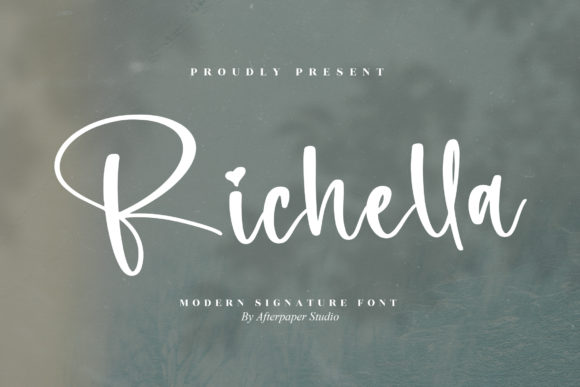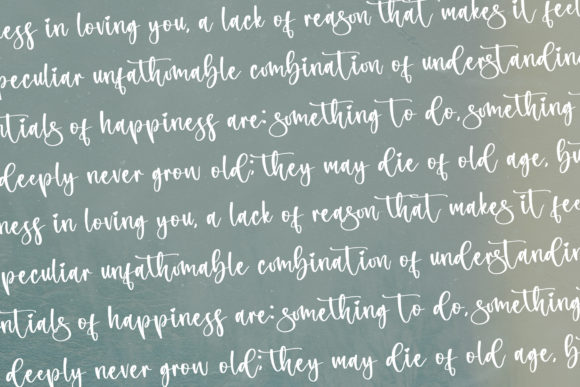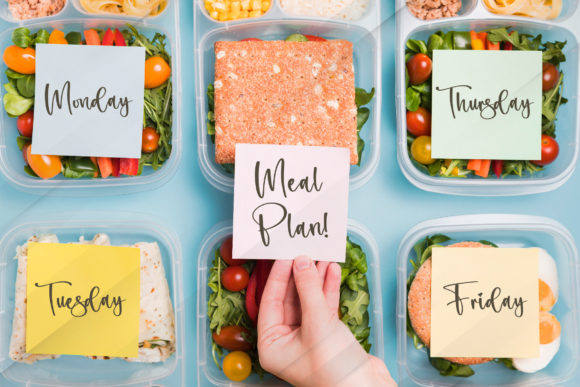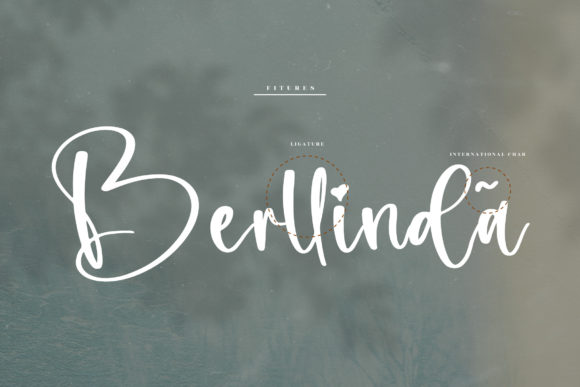
About Richella Font
Richella is a beautiful script font that looks natural, romantic, and extremely chic. Use it for personal branding projects, tags, badges, wedding invitations, birthday cards, or any other project that requires a beautiful personal note.